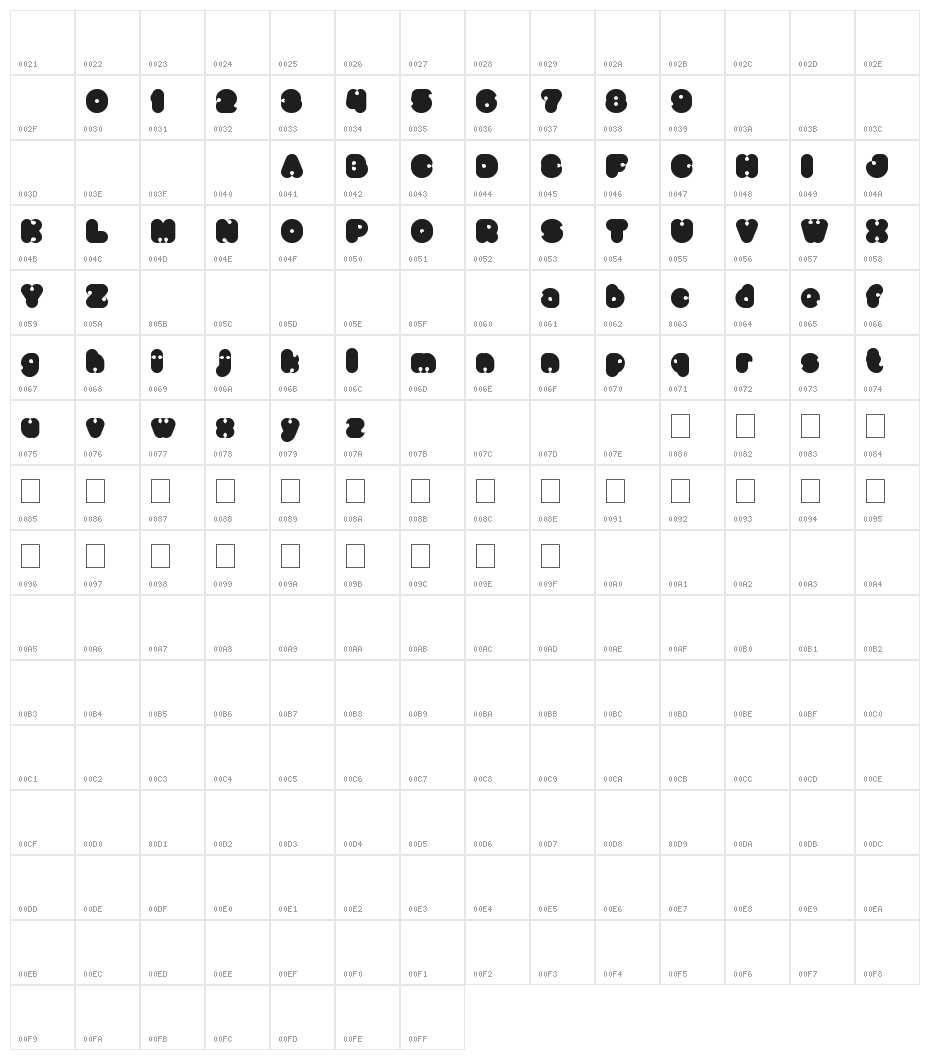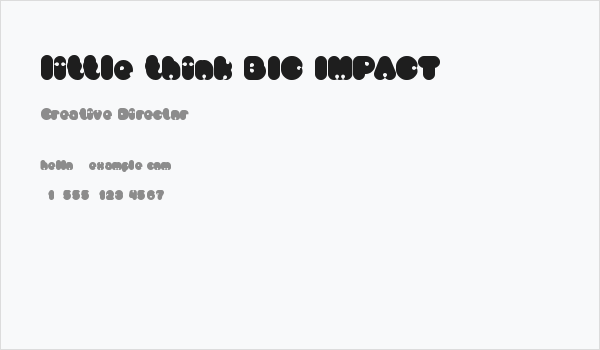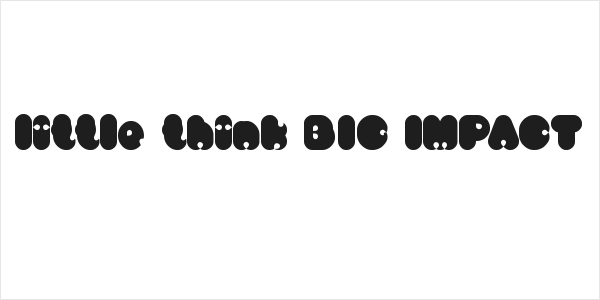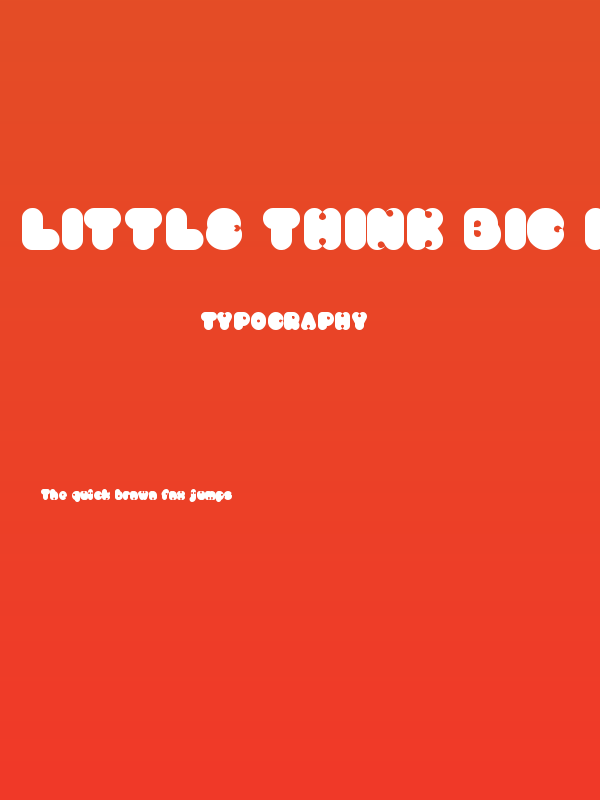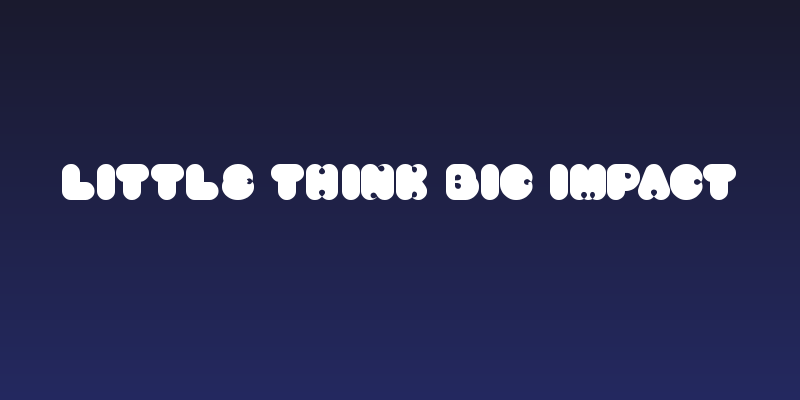
little think BIG IMPACT Font
little think BIG IMPACT Description
This font features a bold and playful design with a unique, rounded style. Each character is crafted with a distinct circular cutout, giving it a whimsical and eye-catching appearance. The letters are uniformly thick, providing a strong visual impact. The font maintains a consistent weight throughout, ensuring readability while adding a touch of fun and creativity. Its boldness and decorative elements make it ideal for projects that require a standout typeface with personality.
| Overall Style | Playful, Modern |
| Proposed Projects | Ideal for children's books, playful branding, posters, and creative advertisements. |